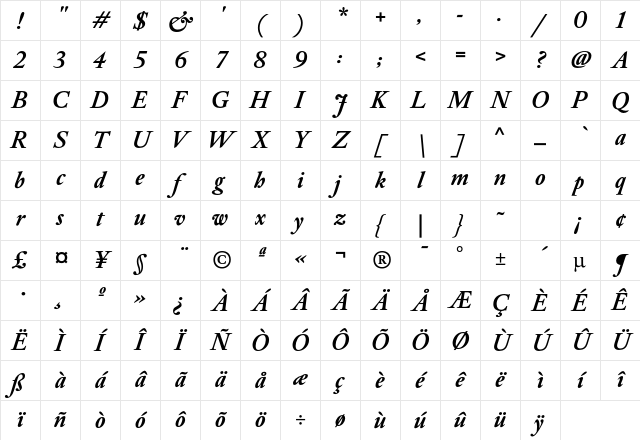
DTL Elzevir T Bold Italic
Style: T Bold Italic
Design Context for DTL Elzevir
DTL Elzevir is a composed and adaptable typeface that performs quietly and consistently across a wide range of design contexts. The slanted form adds forward momentum and visual energy. Its bold stroke weight gives it real presence on the page.